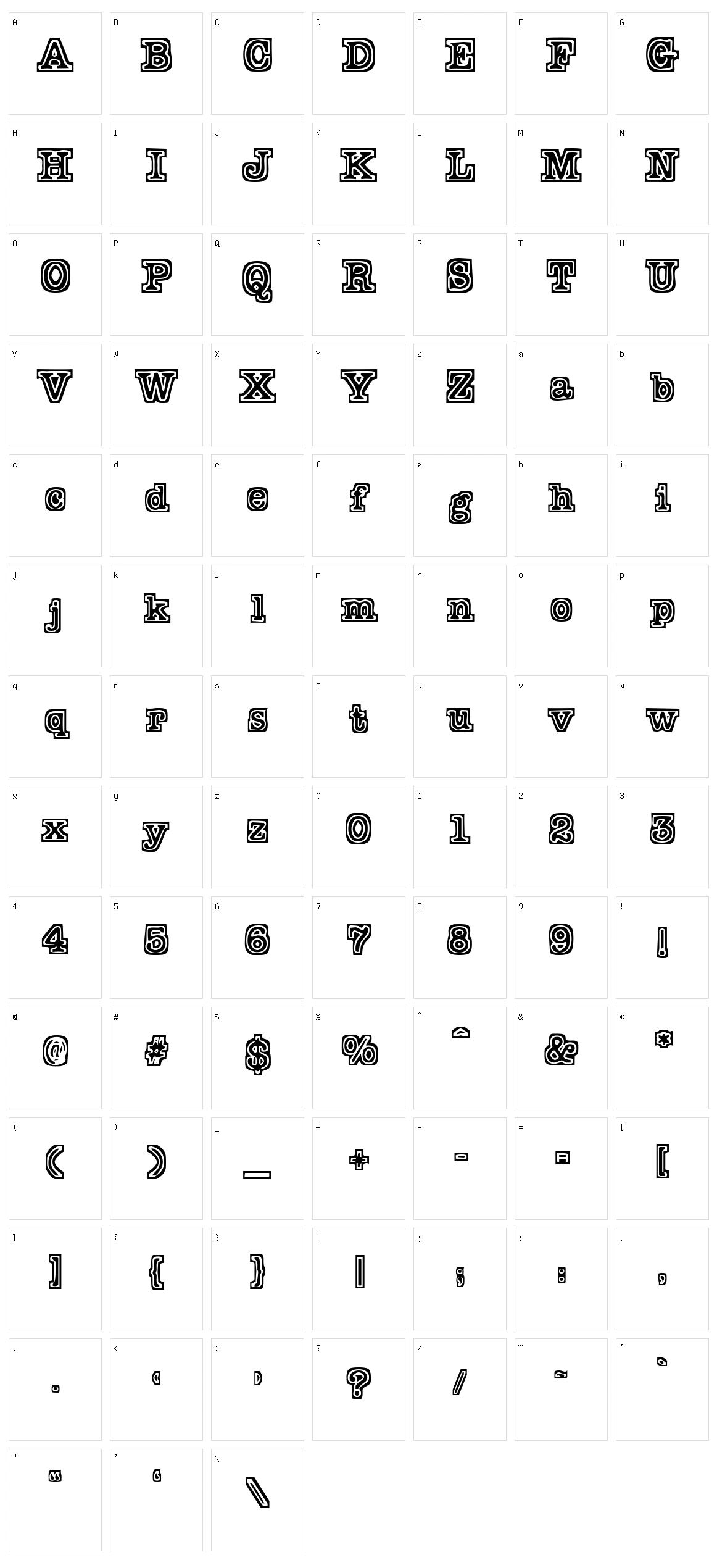
The free font TypeBlock is carefully designed by Andy Krahling, showcasing a thoughtful balance of creativity and usability and falls under the Typewriter font style. When you download the ZIP file, it contains only 35.36 KB of font files, making it lightweight and quick to download. Please review the license details below to understand permitted usage and distribution rights. If license information is not available, we recommend using this font for personal projects only or contacting the author directly for commercial usage permissions.